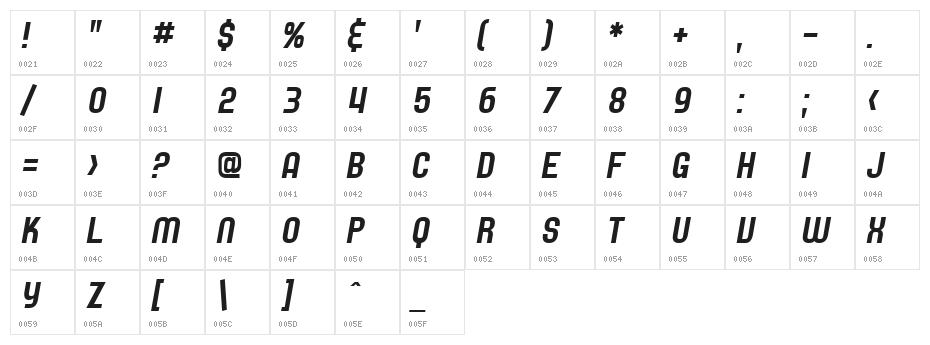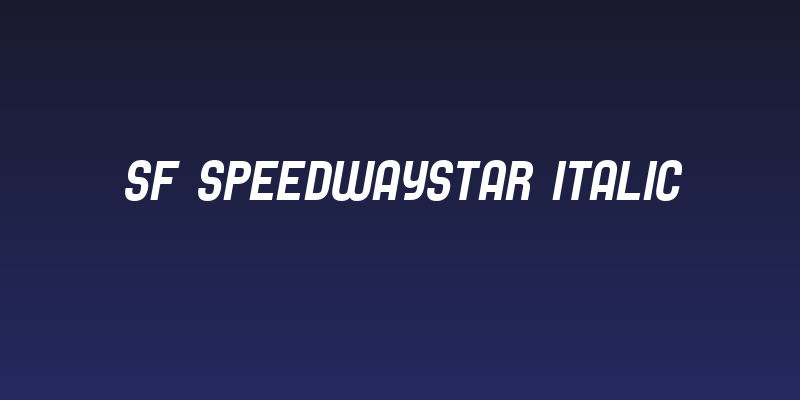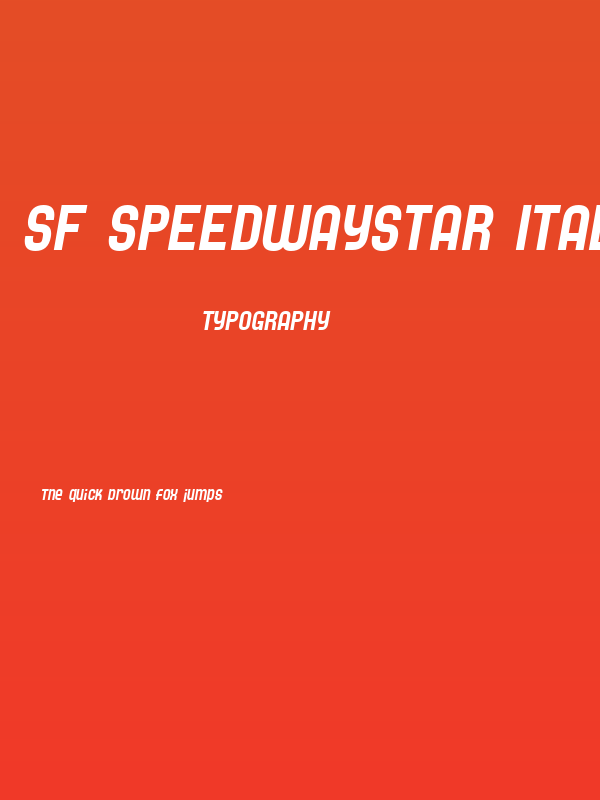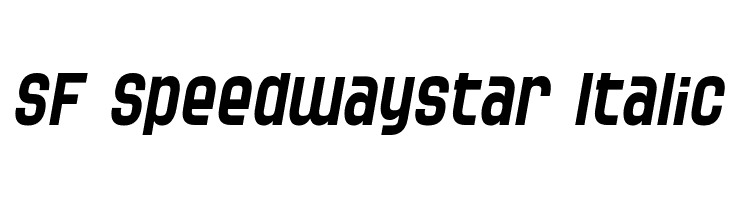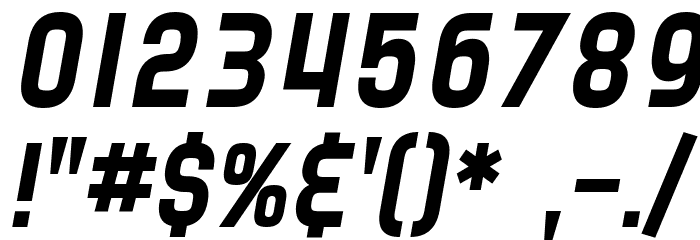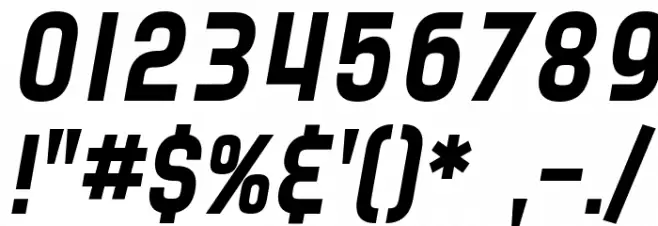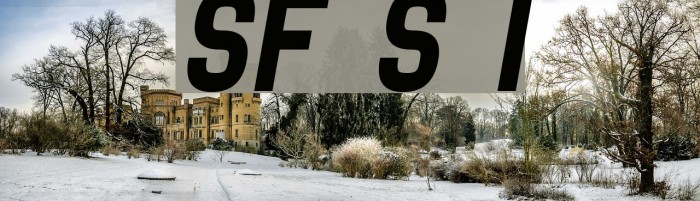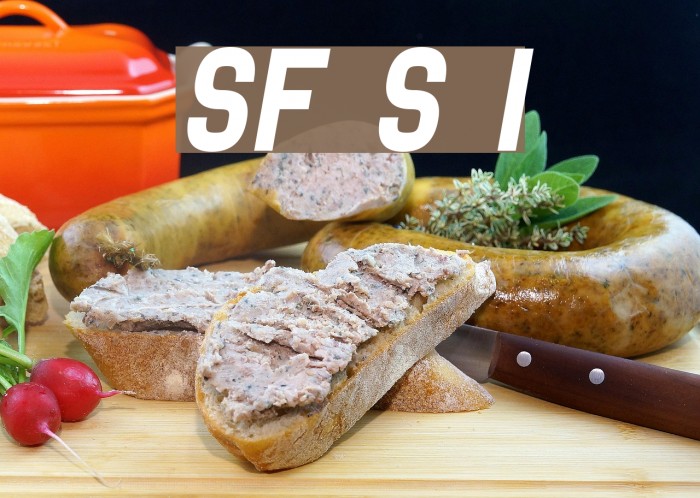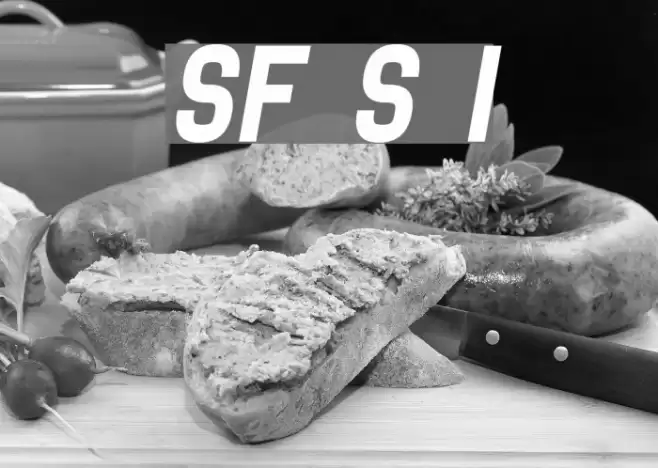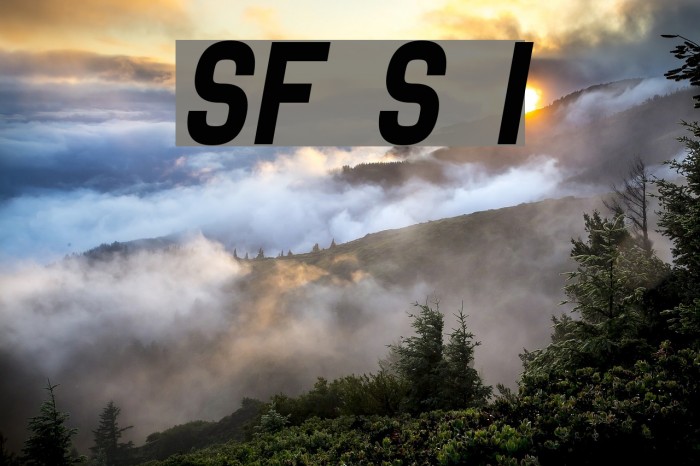
SF Speedwaystar Italic Font
SF Speedwaystar Italic Description
This font features a dynamic and modern design with a strong italic slant, giving it a sense of motion and speed. The characters are bold and slightly condensed, with smooth curves and sharp edges that create a sleek appearance. The uppercase and lowercase letters maintain a consistent style, while the numerals and special characters complement the overall aesthetic. The font's design is ideal for projects that require a contemporary and energetic look.
| Proposed Projects | Ideal for sports branding, automotive advertisements, dynamic posters, and modern web design. |